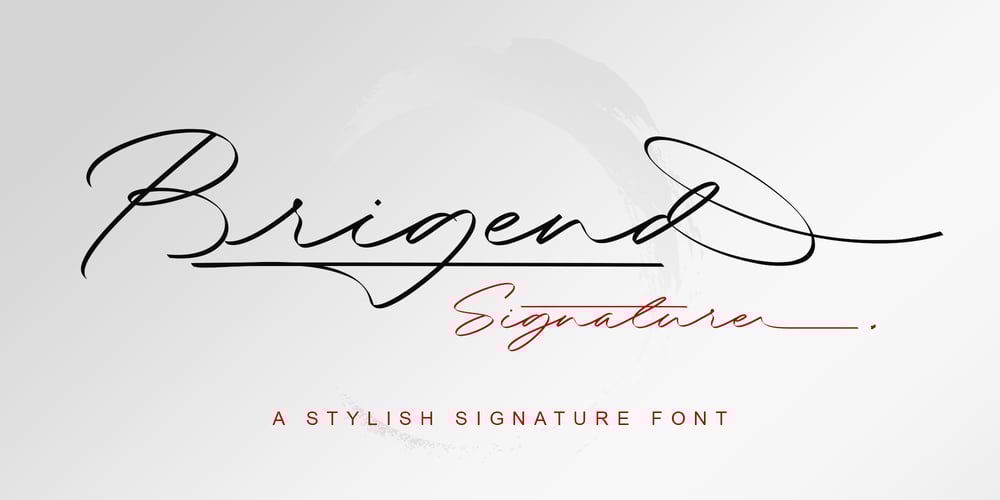
Brigend Signature Font Family was designed by Dwi Ahidian and published by Lemonthe. Brigend Signature contains 1 styles and family package options. Brigend Signature is a stylish signature font, with a natural & stylish flow. Brigend Signature Font is perfect for many different project such as logos & branding, invitation, stationery, wedding designs, social media posts, advertisements, product packaging, product designs, label, photography, watermark, special events or anything.